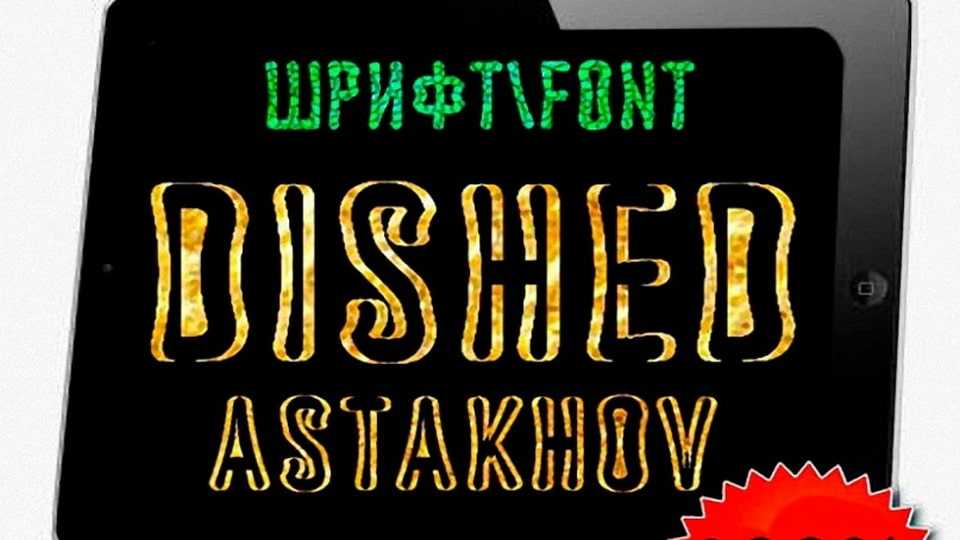
Astakhov Dished Font Family › Fontesk – Download Grátis
Download Astakhov Dished font, a bold and futuristic display typeface with a unique bubbly texture and creative styles, designed to make a statement.
Designer: D’ Astakhov